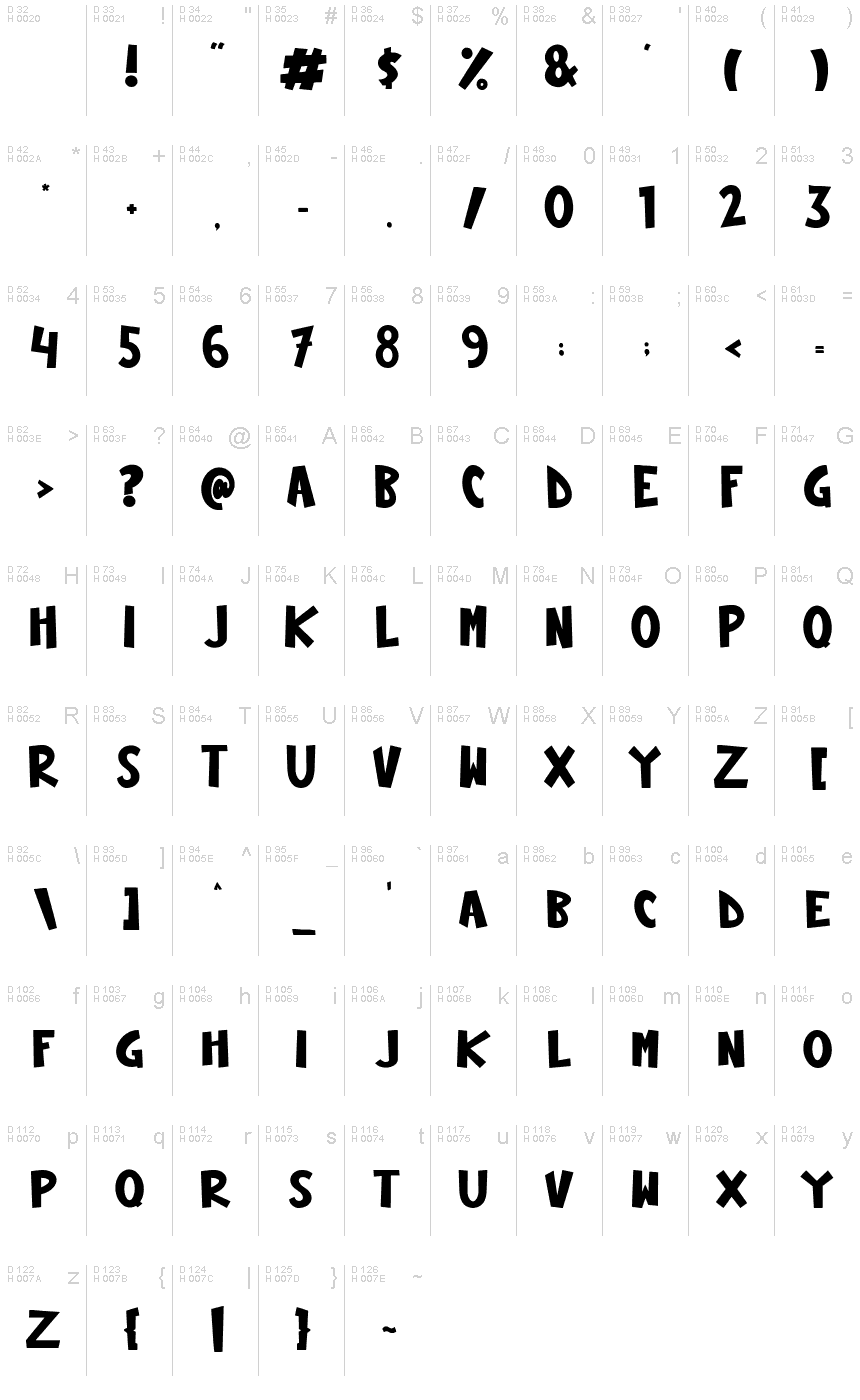
Ohayou Christmas
Introducing Ohayou Christmas, a bold and playful display font designed by HATF. Perfect for adding a festive touch to projects like holiday cards, party invitations, and animated Christmas decorations!